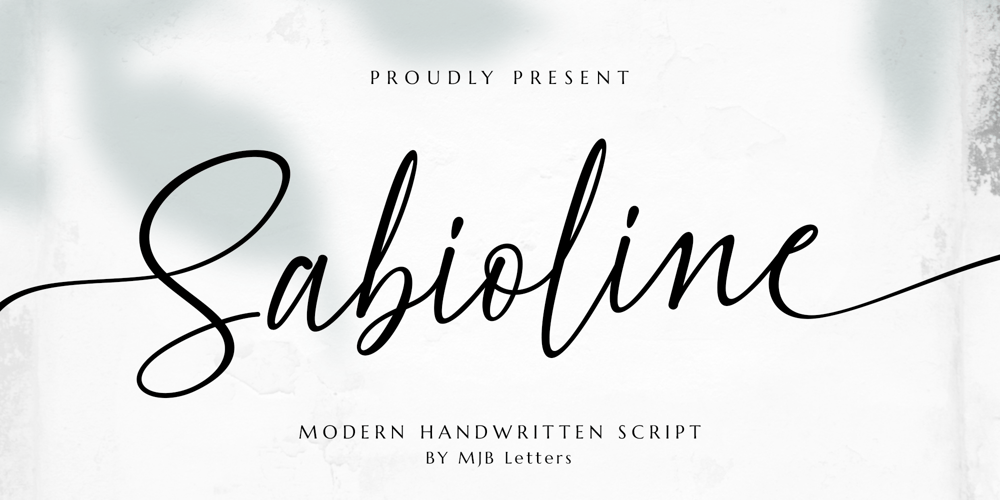
Sabioline Font Family was designed by Muhammad Mujibulloh and published by MJB Letters. Sabioline contains 1 styles and family package options. Sabioline is a modern script font that exudes contemporary chic and elegance. Its sleek, flowing lines and stylish curves make it an excellent choice for a wide range of design applications. Perfect for logos, wedding invitations, and sophisticated branding projects, Sabioline adds a touch of finesse and modernity to your work. Whether you’re designing for special occasions or creating a distinctive brand identity, Sabioline’s versatile and refined character ensures your creations stand out with a polished and fashionable appeal.What you get: